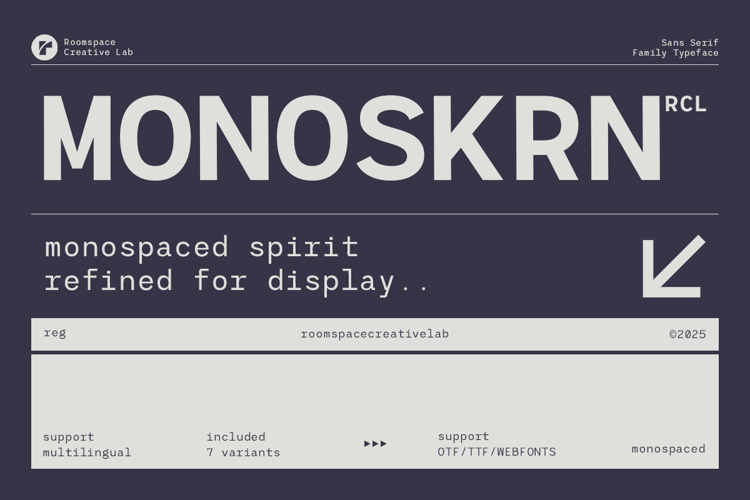
RCL Monoskrn - Font
RCL Monoskrn is a modern monospaced-inspired sans serif designed for clarity and technical precision. It brings the structured spirit of coding fonts into a proportional sans system making it highly usable for branding, interfaces, and editorial layouts.